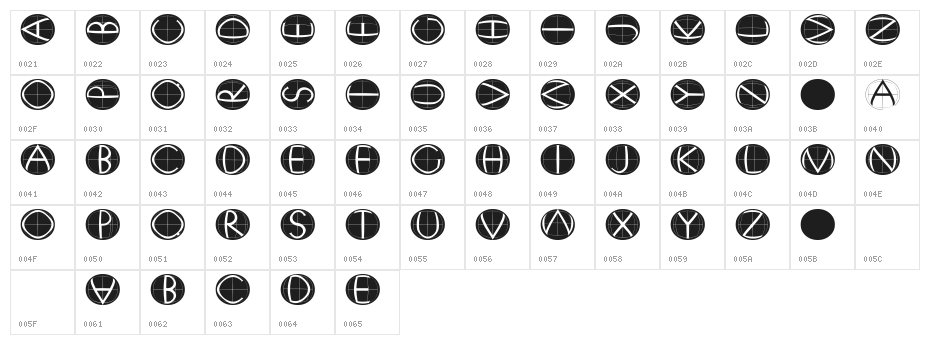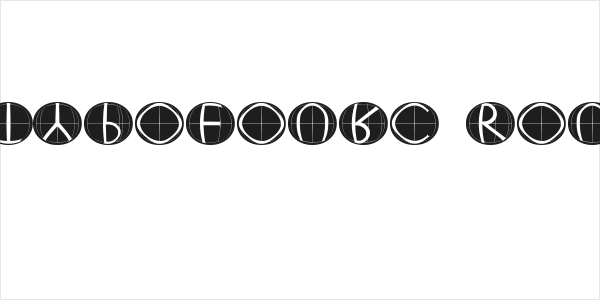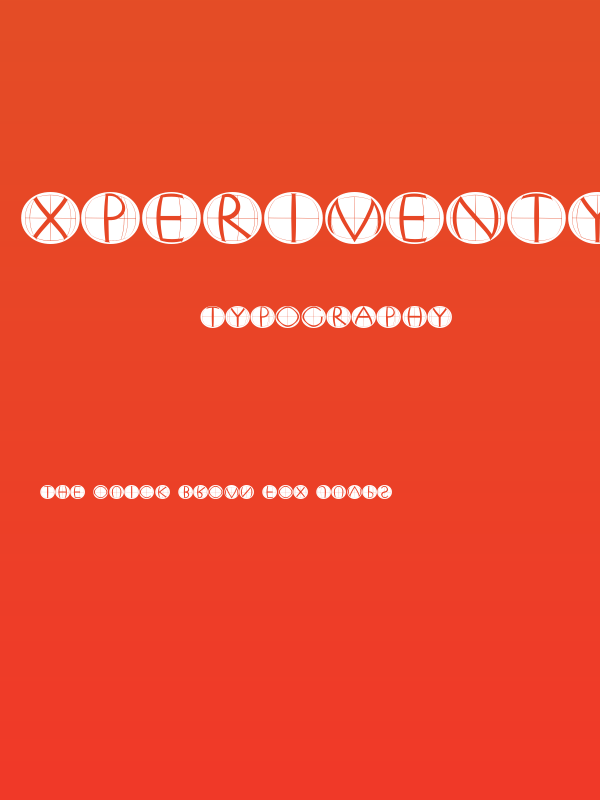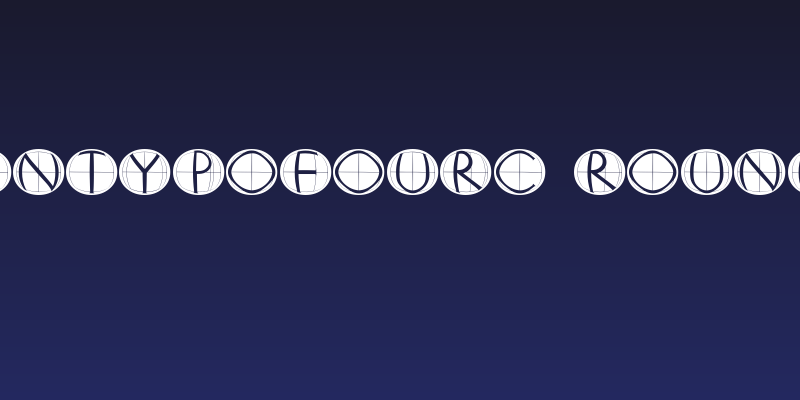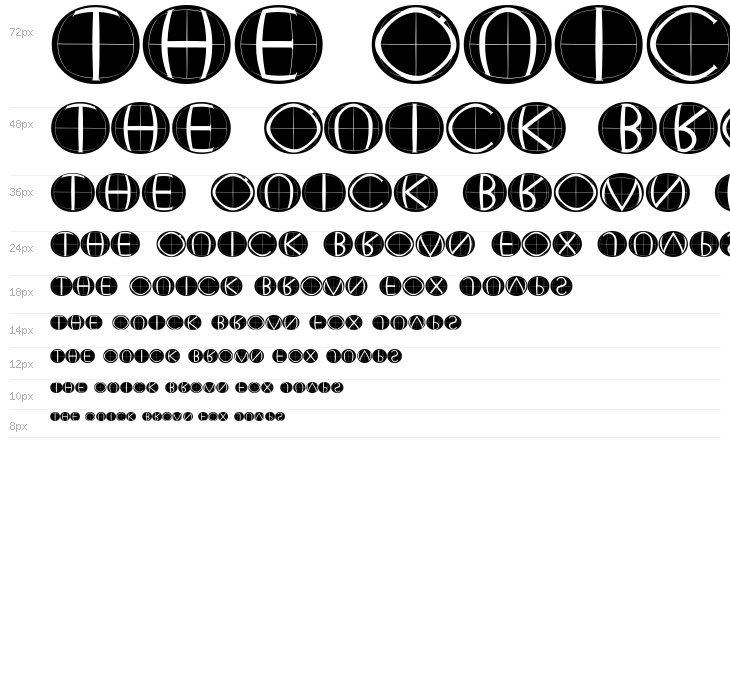
XperimentypoFourC RoundInvers Font
XperimentypoFourC RoundInvers Description
This font features a unique and experimental design where each character is enclosed within a circle, creating a striking visual effect. The letters are crafted with a geometric style, incorporating straight lines and curves that intersect within the circular boundary. This design choice gives the font a futuristic and abstract appearance, making it stand out in any design project. The characters are evenly spaced within their circular confines, ensuring readability while maintaining the artistic integrity of the font. The use of negative space is prominent, with the black background contrasting sharply against the white lines of the characters, enhancing the overall visual impact.
| Use Case | Logos, Headlines, Artistic displays |
| Proposed Projects | Ideal for modern art projects, futuristic branding, digital media, and experimental design work. |